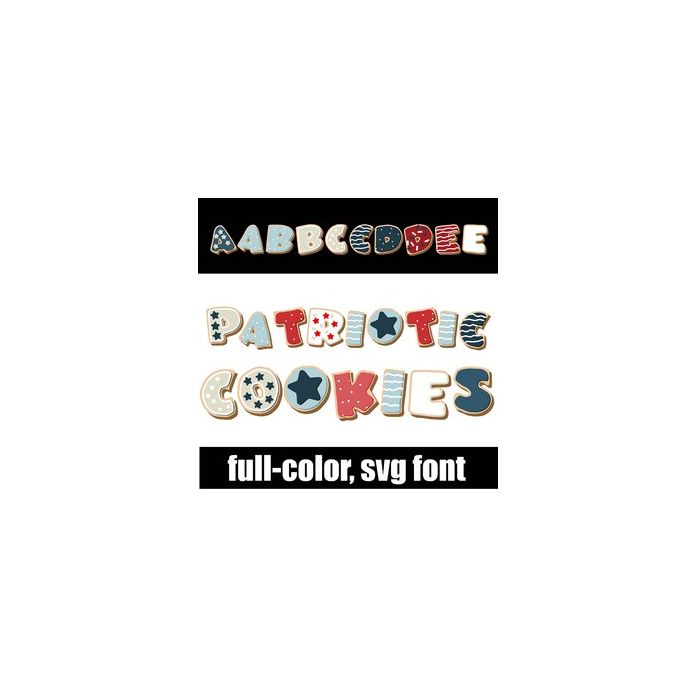
This full-color font features cookies in patriotic colors and stars and stripes. There is an alt version you can access through your system's character map that contains additional colors of all the letters.